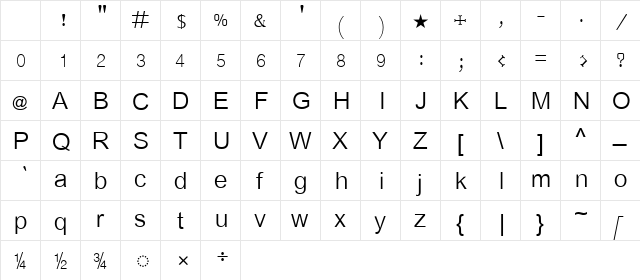
Complete TAU_Elango_Cheran Regular glyph index. Displaying only characters natively supported by TAU_Elango_Cheran Regular font.
TAU_Elango_Cheran is a composed and adaptable typeface that performs quietly and consistently across a wide range of design contexts.